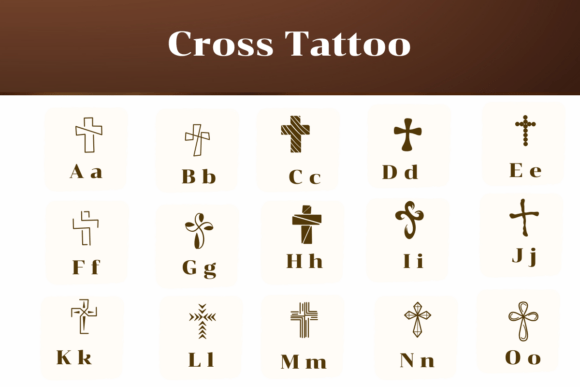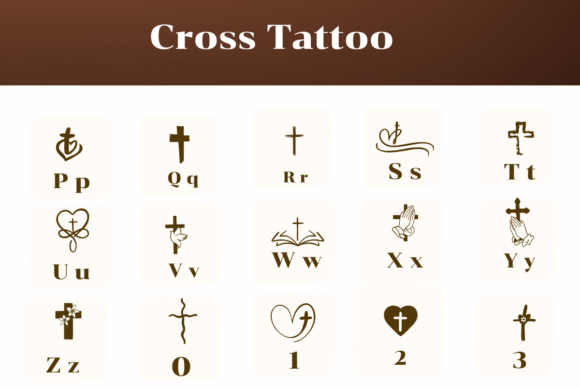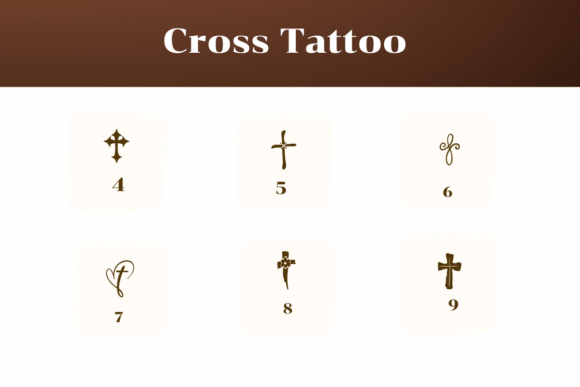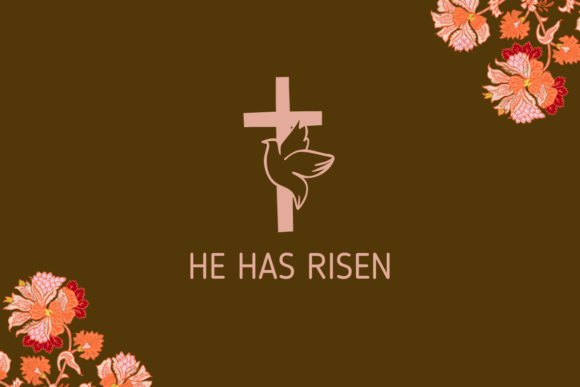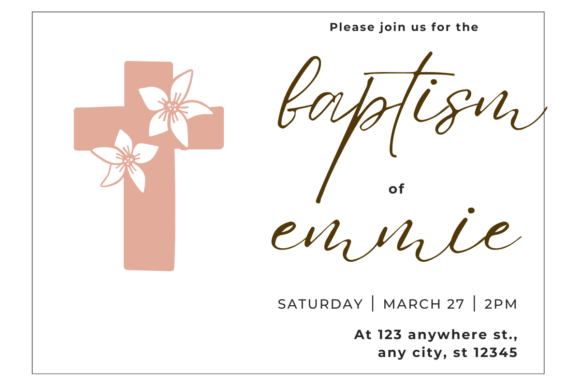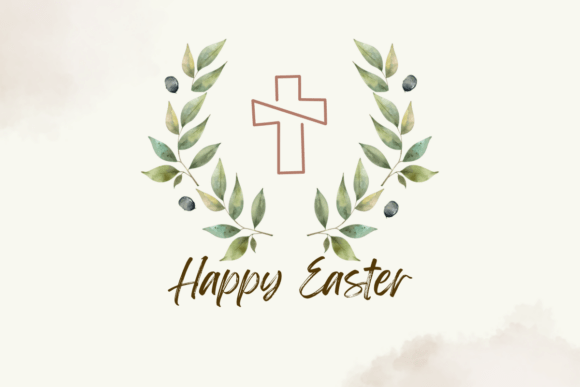
Cross Tattoo Font: Elevate Your Designs with a Sacred Theme
Are you a designer or crafter looking for a unique and meaningful font to enhance your creative projects? Look no further than Cross Tattoo Font, a stunning dingbats font with a sacred theme. This versatile font is perfect for a wide range of applications, from wedding invitations and DIY crafts to decorations, logos, and more.
What is Cross Tattoo Font?
Cross Tattoo Font is a carefully crafted dingbats font that features intricate and symbolic designs inspired by the cross. The font is made up of a collection of glyphs, including crosses, sacred symbols, and other meaningful icons that can add a touch of elegance and spirituality to your designs.
Key Features of Cross Tattoo Font
- Sacred Theme: Cross Tattoo Font is built around a sacred theme, making it perfect for designs that require a sense of reverence and spirituality.
- Dingbats Font: As a dingbats font, Cross Tattoo Font features a collection of glyphs that can be used to add visual interest and meaning to your designs.
- Versatile: This font is suitable for a wide range of applications, from wedding invitations and DIY crafts to decorations, logos, and more.
- Elegant and Symbolic: The font features intricate and symbolic designs that can add a touch of elegance and meaning to your designs.
Uses for Cross Tattoo Font
Cross Tattoo Font is a versatile font that can be used in a variety of creative projects. Here are some ideas to get you started:
- Wedding Invitations: Add a touch of elegance and spirituality to your wedding invitations with Cross Tattoo Font.
- DIY Crafts: Use the font to create unique and meaningful DIY crafts, such as decorations, cards, and gift tags.
- Decorations: Create beautiful decorations, such as wall art, banners, and garlands, using Cross Tattoo Font.
- Logos: Use the font to create logos for businesses or organizations that require a sense of reverence and spirituality.
- Stationery: Add a touch of elegance and sophistication to your stationery, such as notebooks, journals, and greeting cards.
Tips for Using Cross Tattoo Font
Here are some tips for using Cross Tattoo Font in your designs:
- Experiment with Different Sizes: Try using the font in different sizes to create visual interest and hierarchy in your designs.
- Combine with Other Fonts: Combine Cross Tattoo Font with other fonts to create a unique and interesting typography.
- Use as a Accent Font: Use the font as an accent font to add visual interest and meaning to your designs.
- Customize: Don’t be afraid to customize the font to fit your design needs.
Cross Tattoo Font is a unique and versatile font that can add a touch of elegance and spirituality to your designs. With its sacred theme and intricate glyphs, this font is perfect for designers and crafters looking to create meaningful and beautiful designs. Whether you’re creating wedding invitations, DIY crafts, decorations, logos, or stationery, Cross Tattoo Font is a great choice.
In conclusion, Cross Tattoo Font is a powerful tool for designers and crafters looking to add a touch of elegance and spirituality to their designs. With its versatility, intricate glyphs, and sacred theme, this font is sure to inspire creativity and take your designs to the next level.